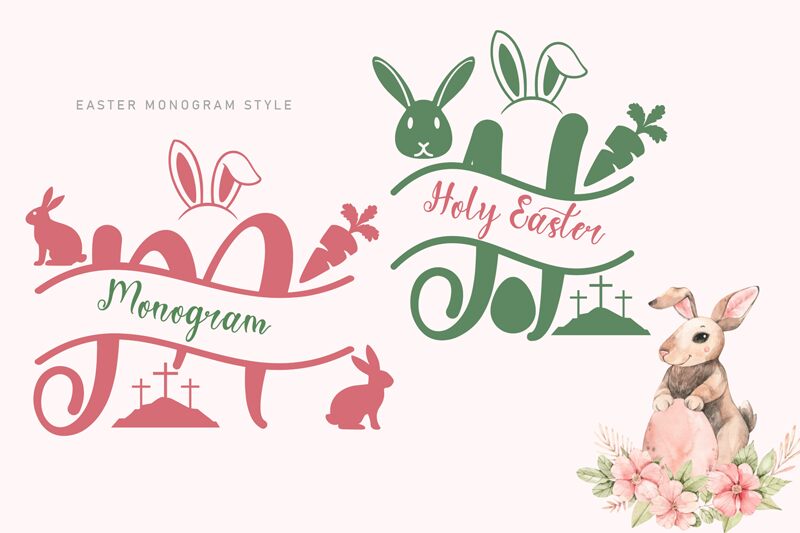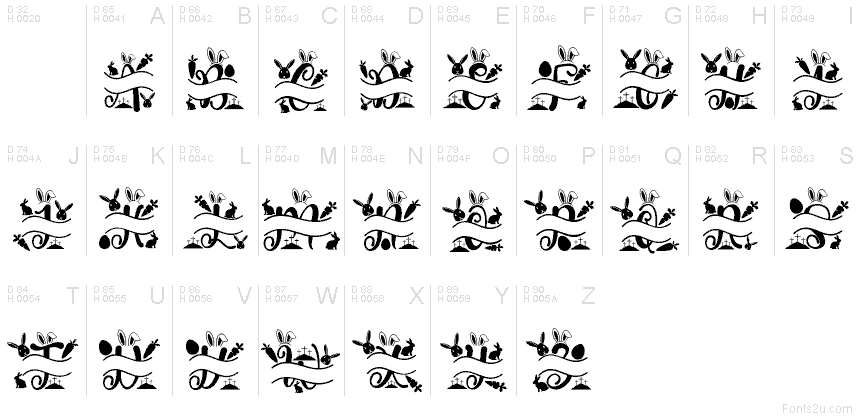
Holy Easter Monogram
Holy Easter Monogram font by Yoga Letter is a free decorative display typeface that turns letters into storybook Easter scenes. Each character blooms with bunnies, eggs, ribbons, and crosses, flowing together like a hand-drawn border. The strokes feel inky and slightly whimsical, giving your layouts a warm, crafted touch rather than a flat, digital look.
Using Holy Easter Monogram font, you can quickly create charming Easter cards, church event flyers, children’s activity sheets, party invitations, social media graphics, and printable decor. This free font shines when set large so the tiny seasonal details stay crisp. Pair it with a clean sans serif for body text and let the monogram letters act as headlines, initials, or decorative frames.